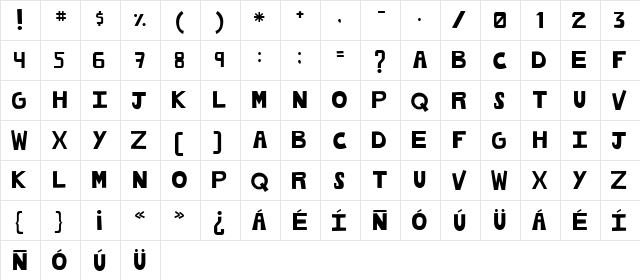
cachetona Regular
| Designer | Samuel David Rhinehart Cervantes Orange |
Design Context for cachetona Typeface
cachetona is a composed and adaptable typeface that performs quietly and consistently across a wide range of design contexts.